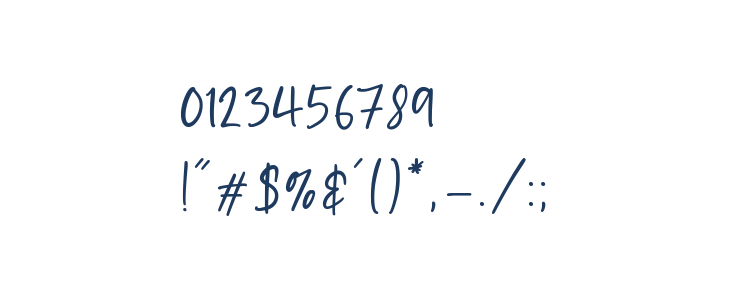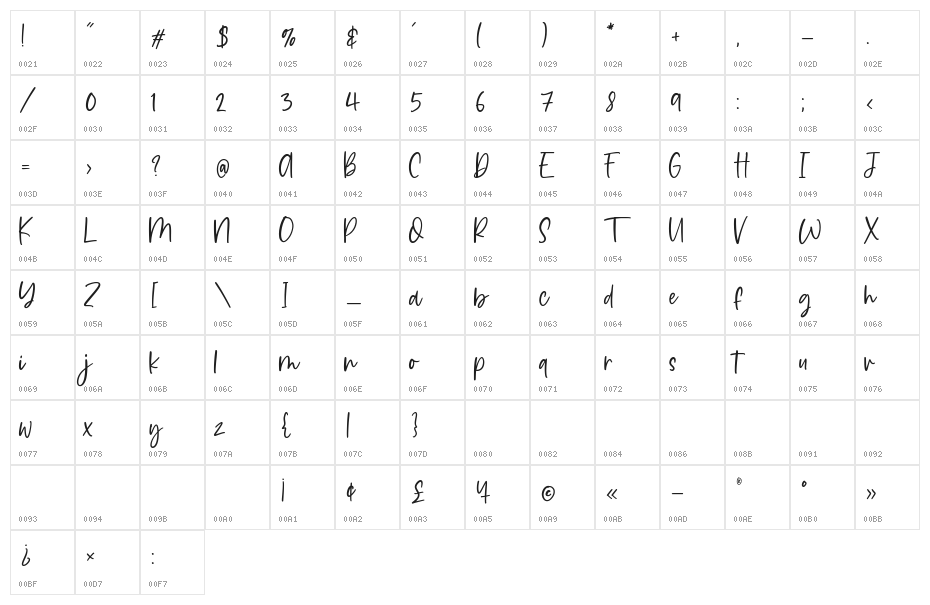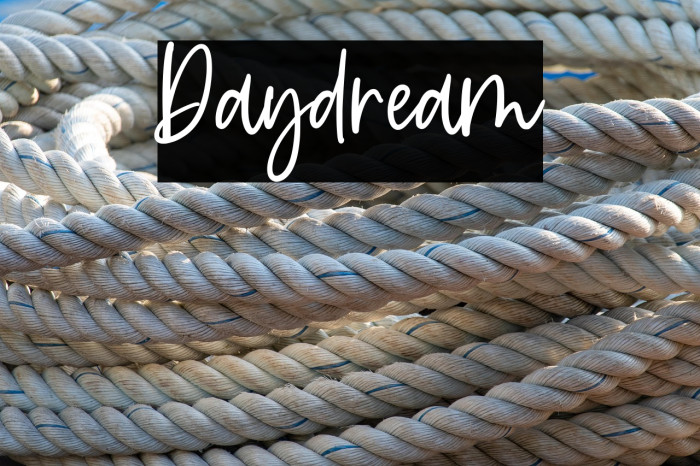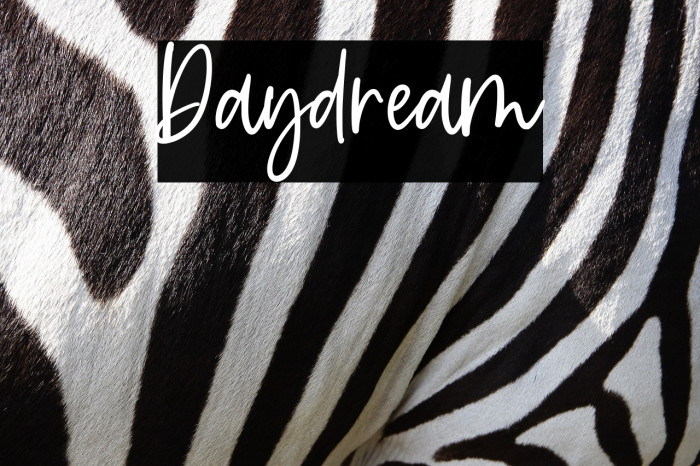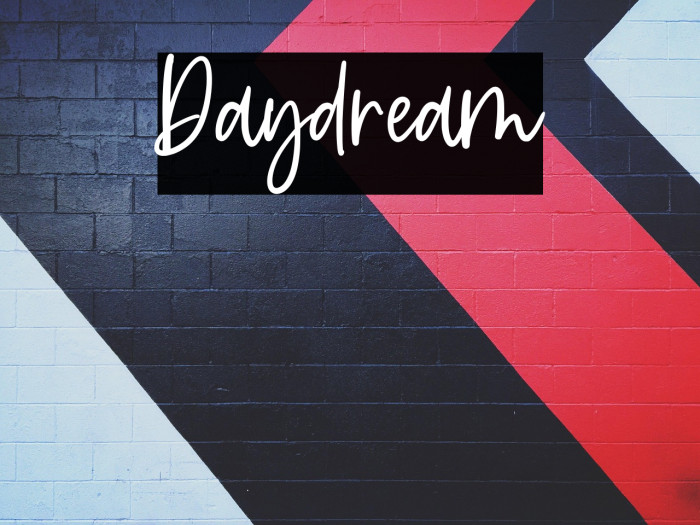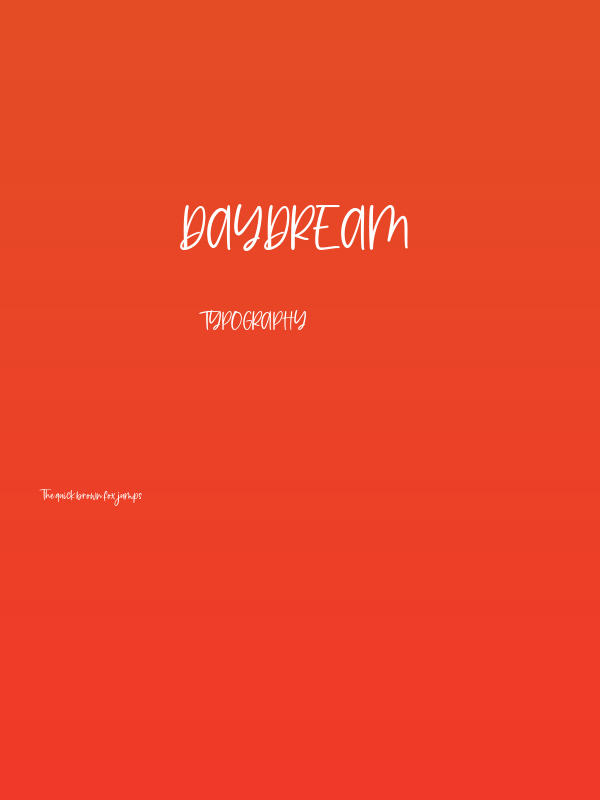
Daydream Font
Daydream Description
This font features a playful and casual handwritten style, characterized by its fluid and slightly irregular strokes. The letters have a natural flow, mimicking the look of authentic handwriting with a touch of whimsy. The uppercase letters are bold and confident, while the lowercase letters maintain a consistent, friendly appearance. Numbers and special characters are designed to complement the overall style, adding to the font's versatility. The font's informal nature makes it suitable for creative projects that require a personal touch.
| Proposed Projects | Ideal for greeting cards, invitations, social media graphics, and personal branding. |